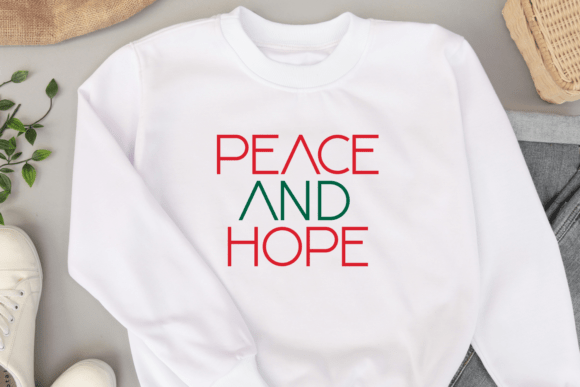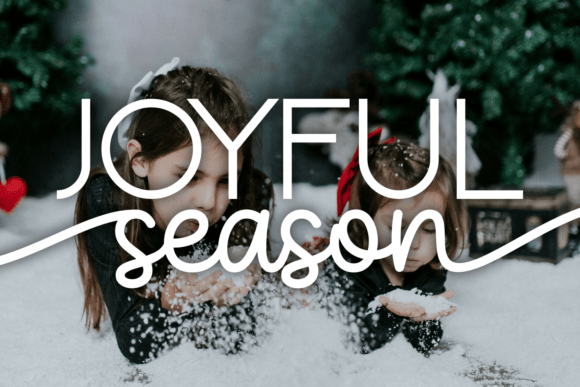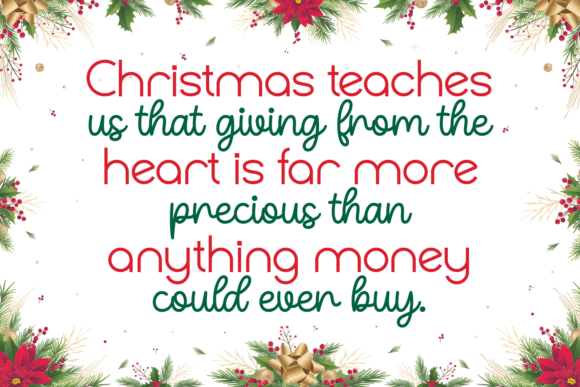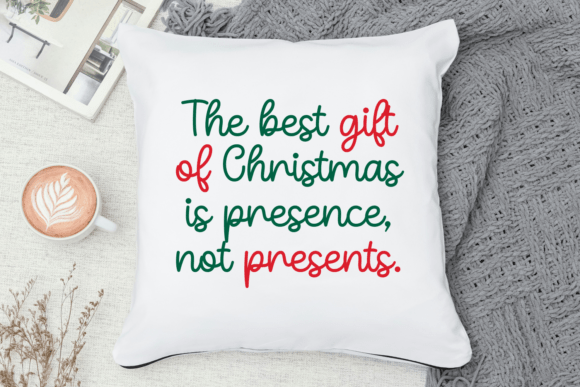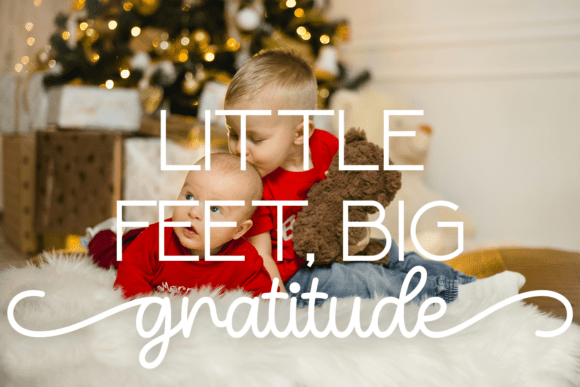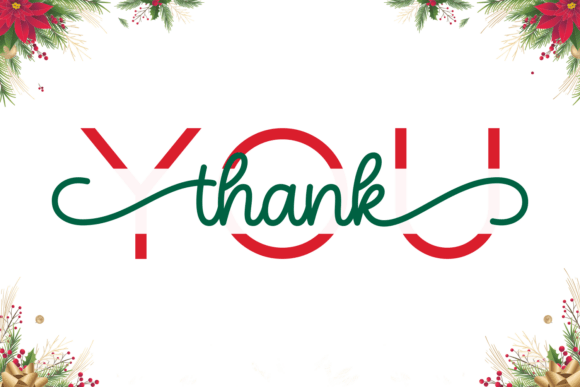
Introduction to Hello Magicaly Font
Hello Magicaly is a festive and elegant Christmas font duo combining a clean sans serif with a stylish script.
Perfect for holiday cards, gift tags, seasonal branding, and winter-themed social posts, it delivers a magical balance of simplicity and sophistication for all your joyful designs .
Key Features of Hello Magicaly Font